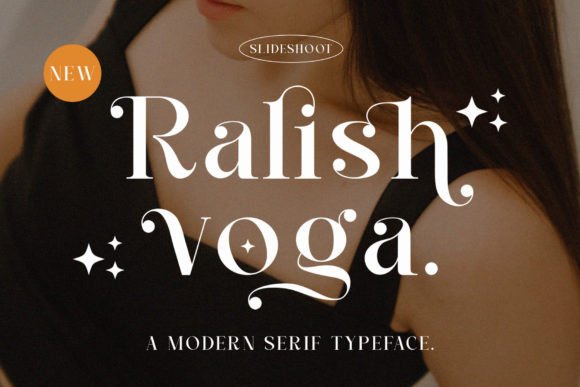
Are you looking for a way to add an element of elegance and sophistication to your designs? Look no further than Ralish Voga Font! Created by Slide Shoot, this deluxe, exclusive serif font is the perfect choice for those seeking a timeless, classic look.
With its beautiful, intricate details, Ralish Voga Font is sure to capture the attention of anyone who sees it. Its luxurious feel is perfect for creating designs that exude refinement and class. This font family is designed with the utmost care, and it shows in every detail.
But Ralish Voga Font is not just about looks - it's also highly functional. Its keyword-rich features make it an excellent choice for a wide range of projects. Whether you're working on a website, a poster, or a business card, Ralish Voga Font is versatile enough to handle anything you throw at it.
So why settle for a basic font when you can have something truly extraordinary? With Ralish Voga Font, you'll be able to take your designs to the next level and stand out from the crowd. Its deluxe, exclusive feel is sure to leave a lasting impression on anyone who sees it.